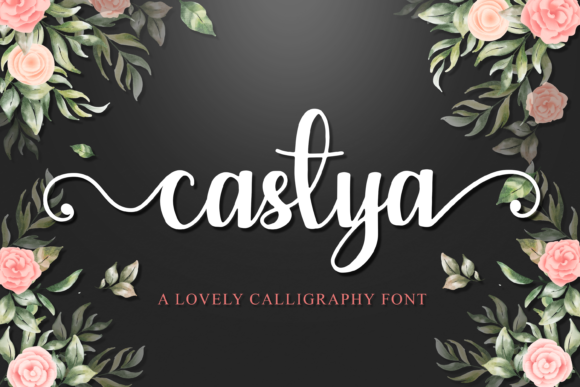
Step into the enchanting world of Castya Font, a script font woven with the artistry of calligraphy. This exquisite font family dances across the page with an array of whimsical swashes, adding a touch of magic to your designs. Castya's enchanting heart-shaped swashes infuse your projects with a tender, romantic allure that will leave an eternal imprint.
Immerse yourself in the beauty of Castya's detailed strokes, meticulously crafted to evoke a sense of elegance and sophistication. With Castya, your words transcend the mundane, becoming works of art that capture the essence of your emotions. Experience the sheer joy of expressing yourself through this captivating font, letting your creativity soar to new heights.
Castya is not just a font; it's a gateway to a world of boundless possibilities. Whether you're designing wedding invitations, greeting cards, posters, or branding materials, Castya seamlessly adapts to your vision, effortlessly enhancing your designs with its timeless charm. Let Castya be your creative companion, guiding you towards captivating outcomes that leave a lasting impression.
With Castya by your side, you'll discover a new level of expression, a realm where your imagination knows no limits. Embrace the allure of Castya and watch as your designs blossom into breathtaking masterpieces. Castya is more than just a font; it's an experience waiting to be discovered. Let the magic begin.